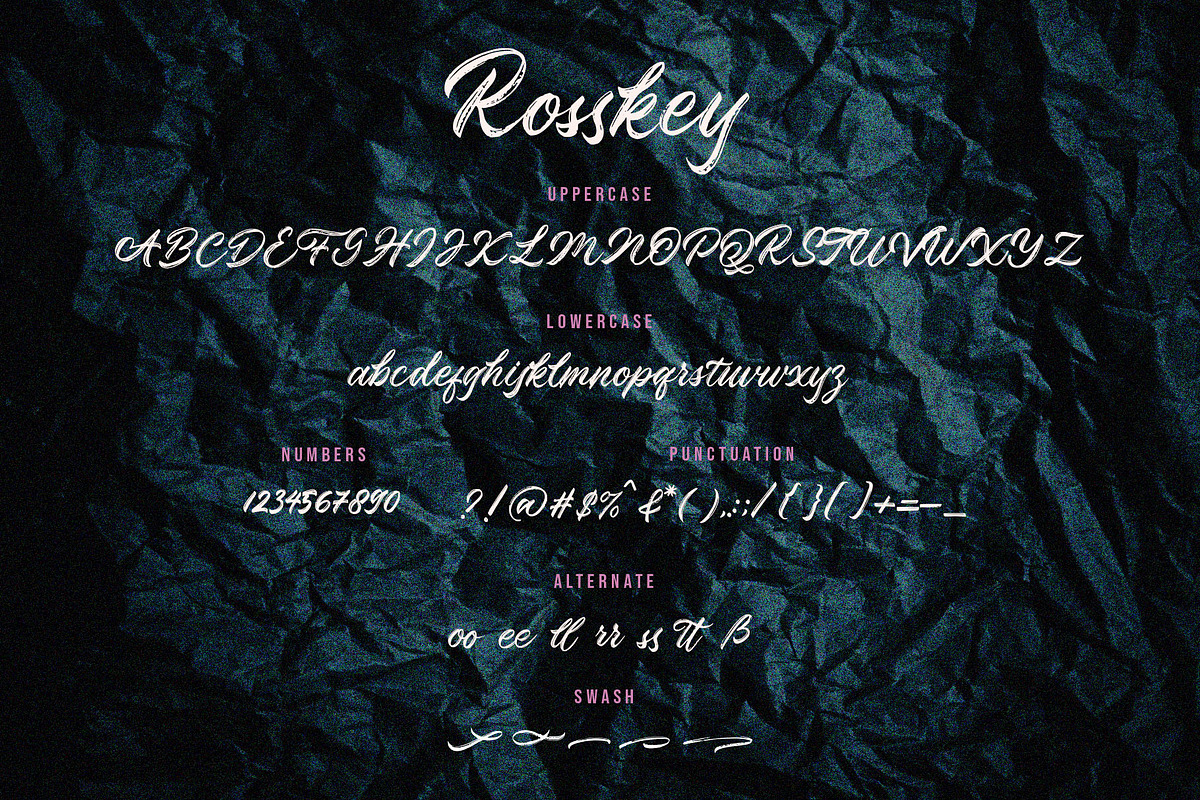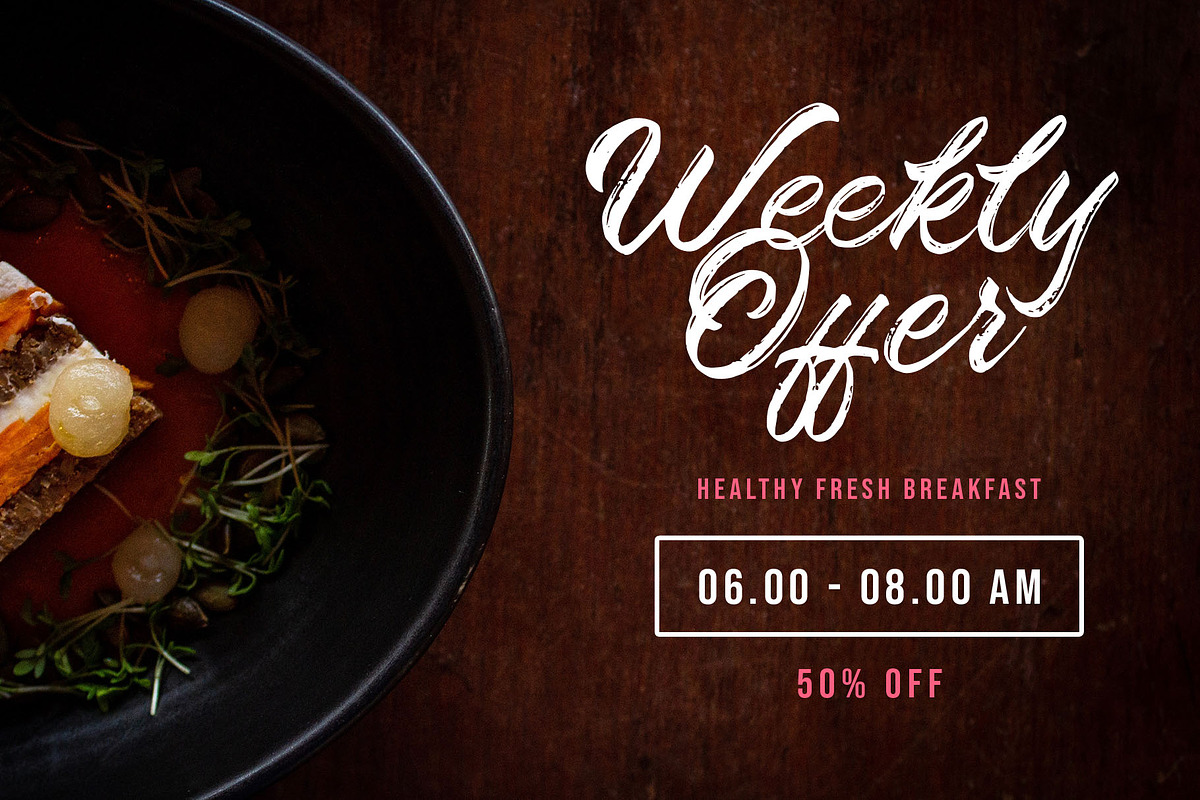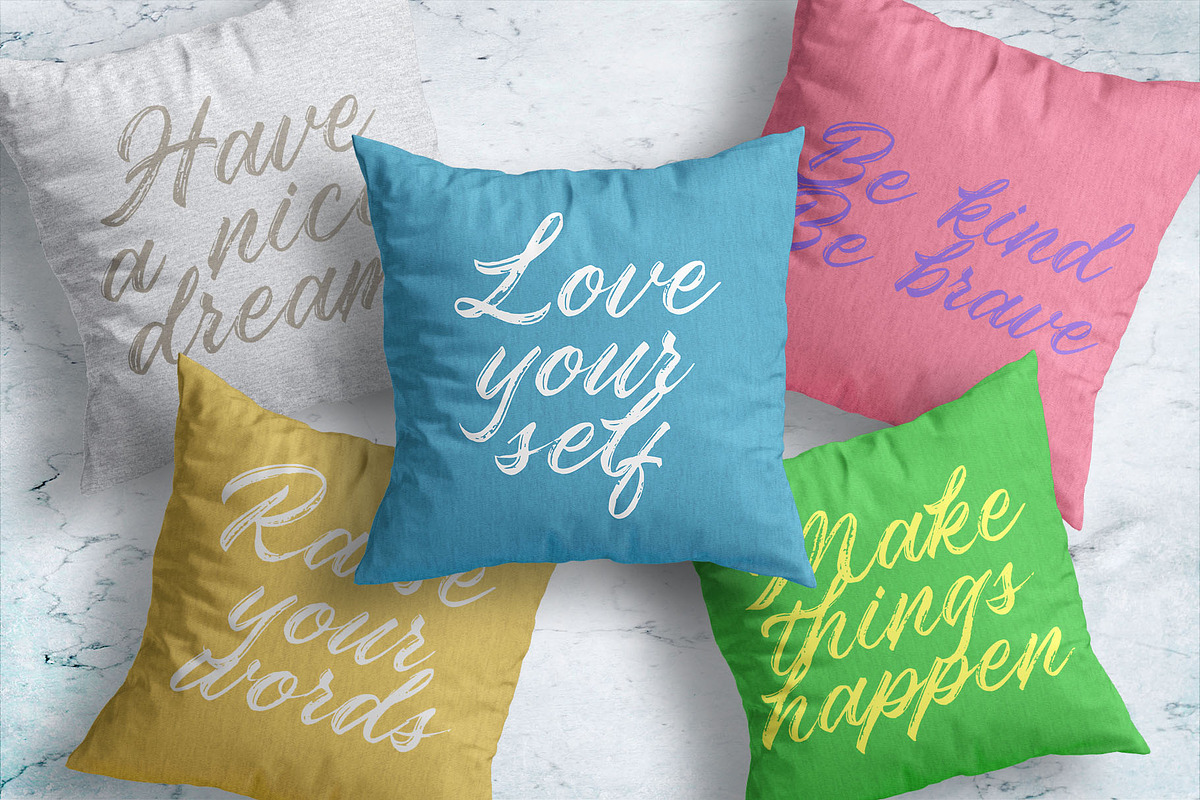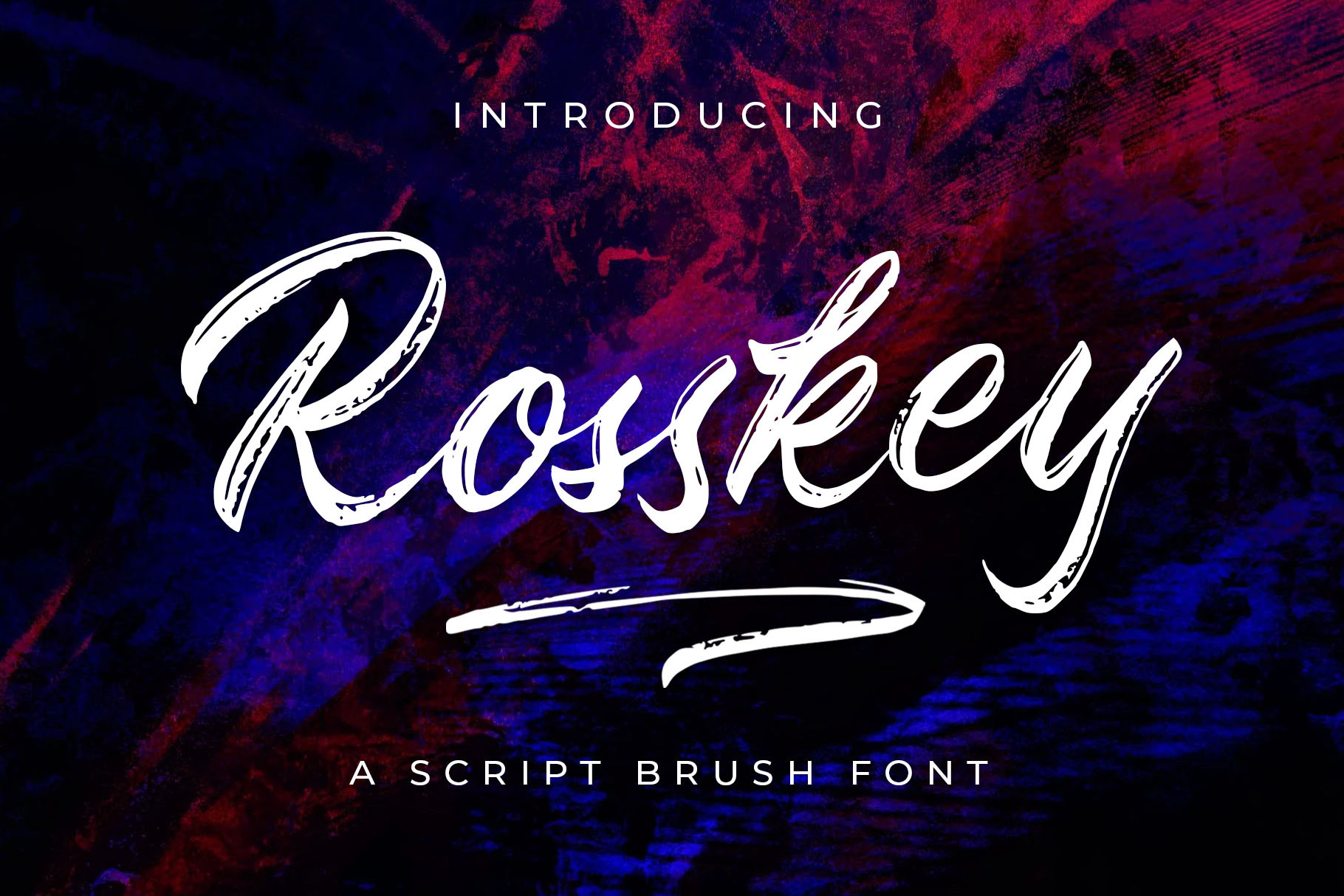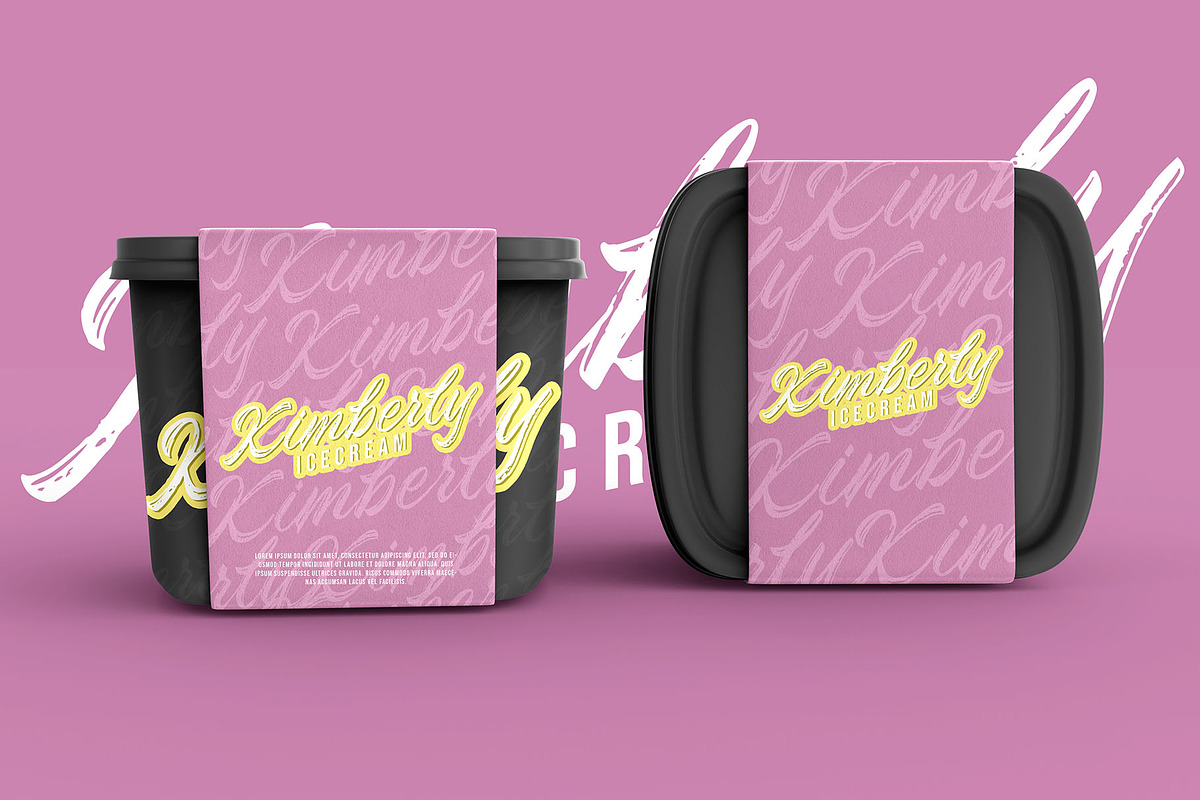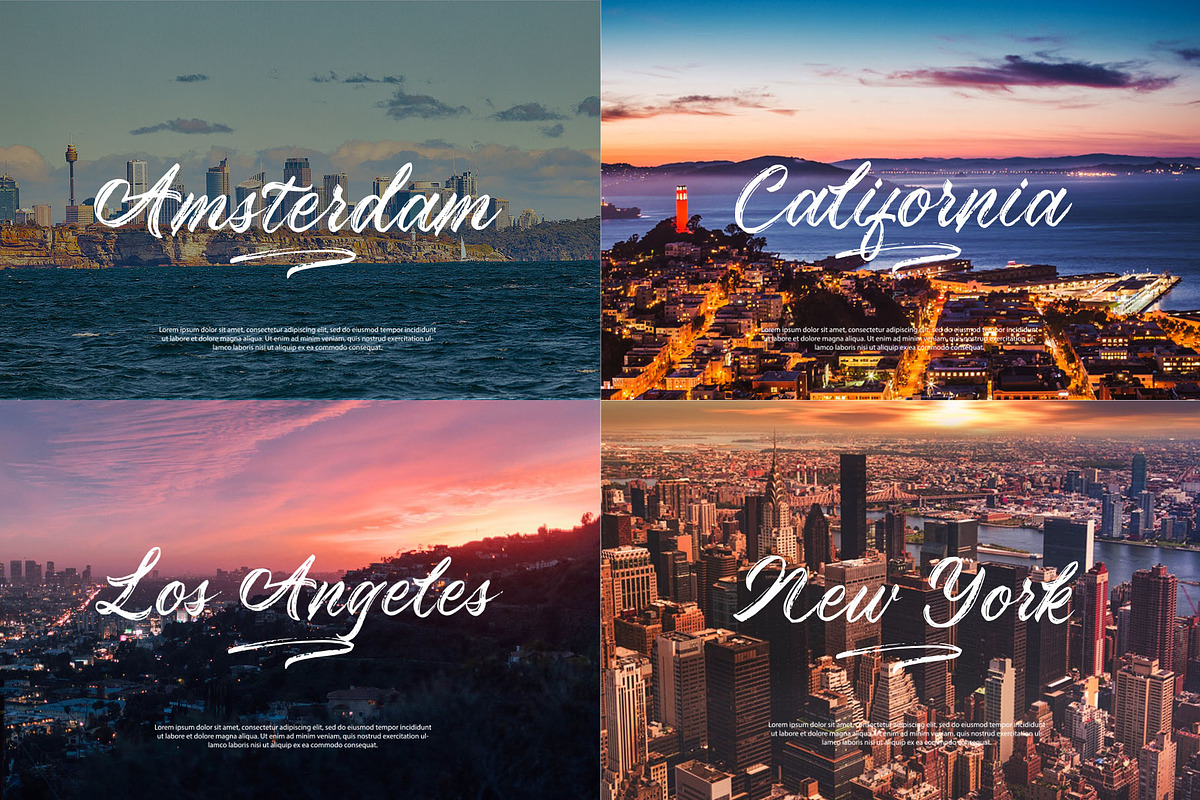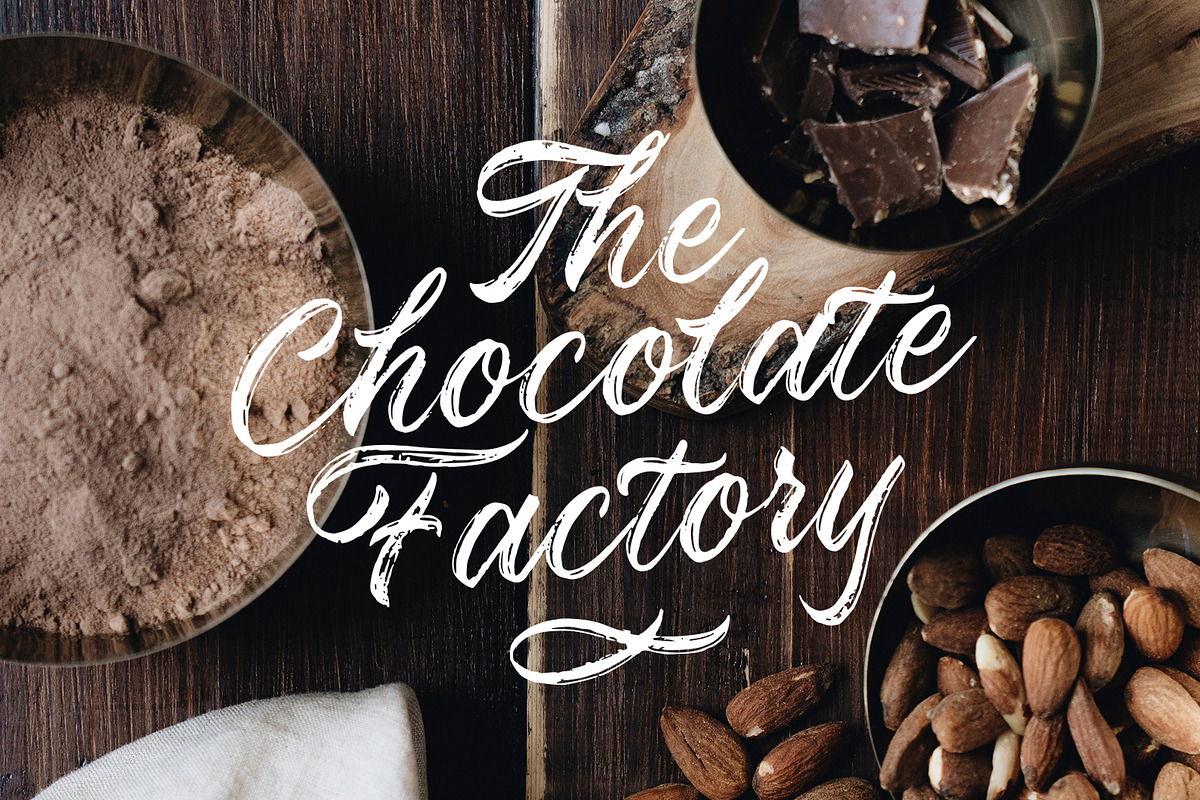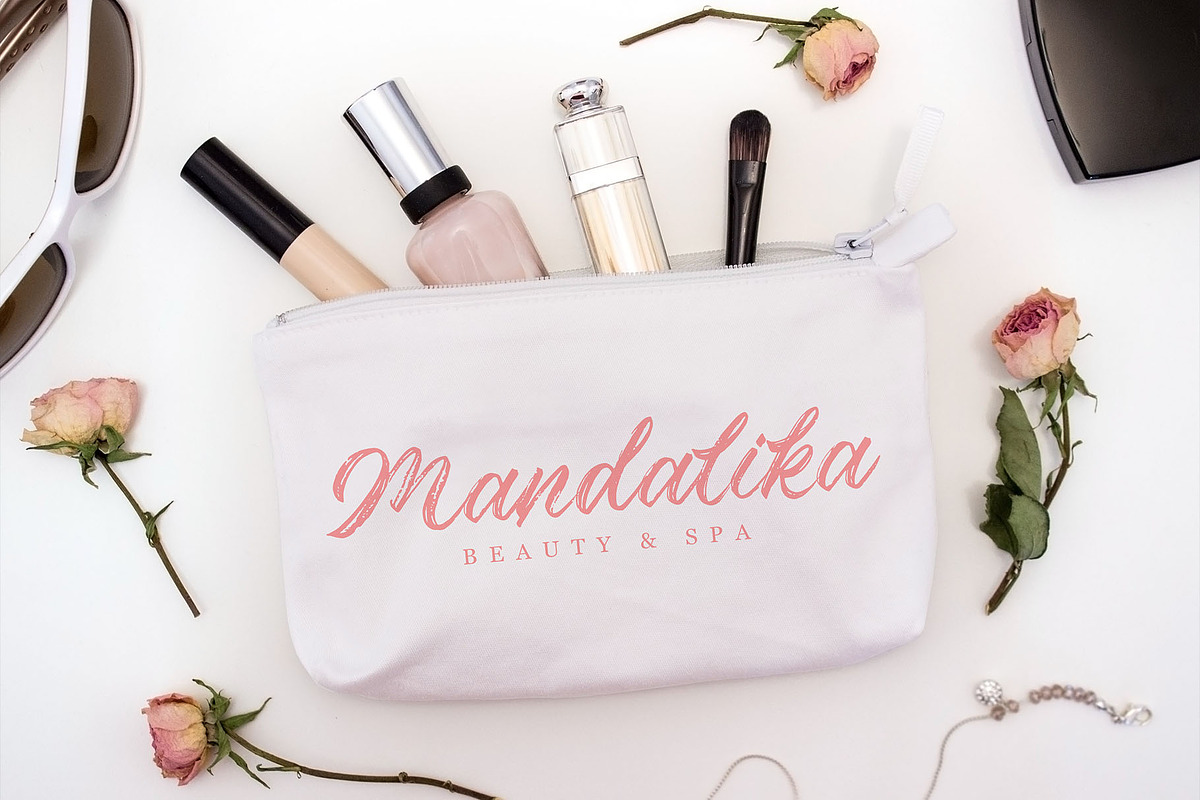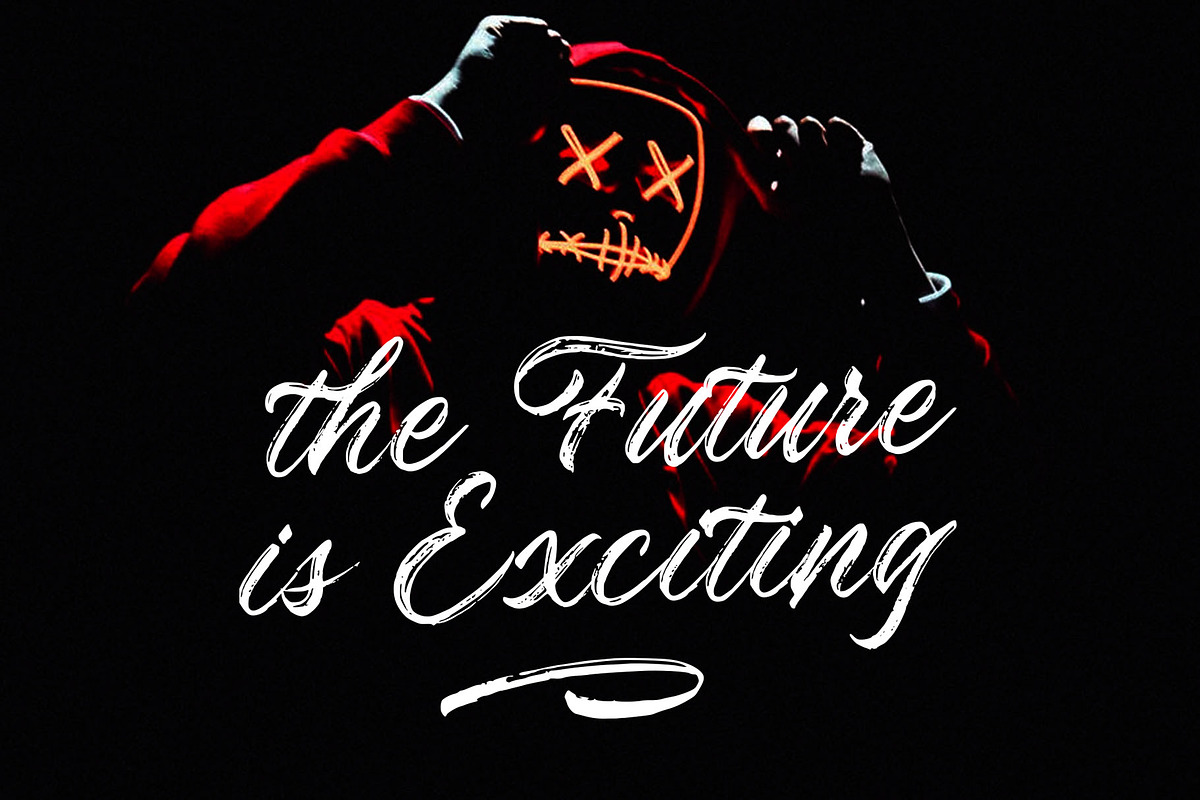
Rosskey - Brush Font
Rosskey is a realistic hand brushed font, with natural authentic brush, and also provided some alternate and Swashes. Brand new stylish textured fonts and Make it easy for made logotype Handlettering Style. It will be great for Logotypes, Posters, Digital Lettering Arts, Clean Design, Branding Design, Sign, Merchandise and Social Media Posts. This font contain of Uppercase, Lowercase, Number, Symbol, Punctuation, also support multilingual and already PUA encoded.